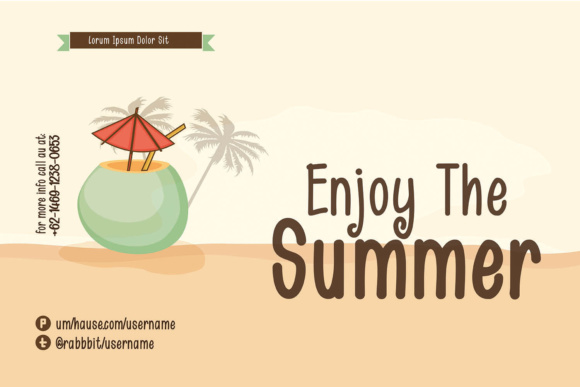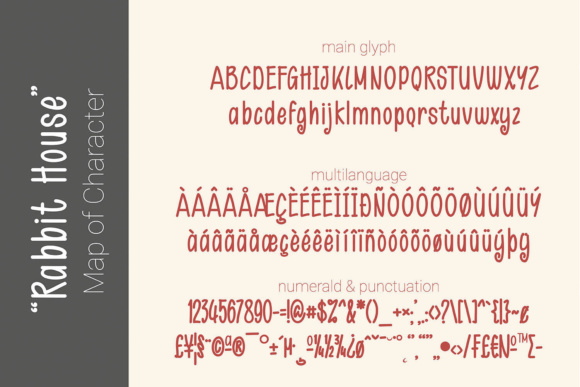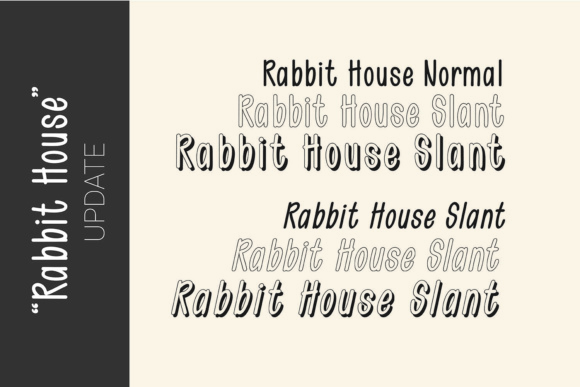
Introduction to Rabbit House Font
The rabbit house is a simple yet strong typeface.
It’s extensively edited for super-smooth lines and curves, so it’ll cut easily in your Cricut or Silhouette machine It has a cute and funky feel which makes it perfect for various designs.
Rabbit House Font offers exceptional quality and versatility, making it a valuable addition to your design toolkit. Whether you’re creating for personal projects or commercial use, Rabbit House Font delivers professional results.